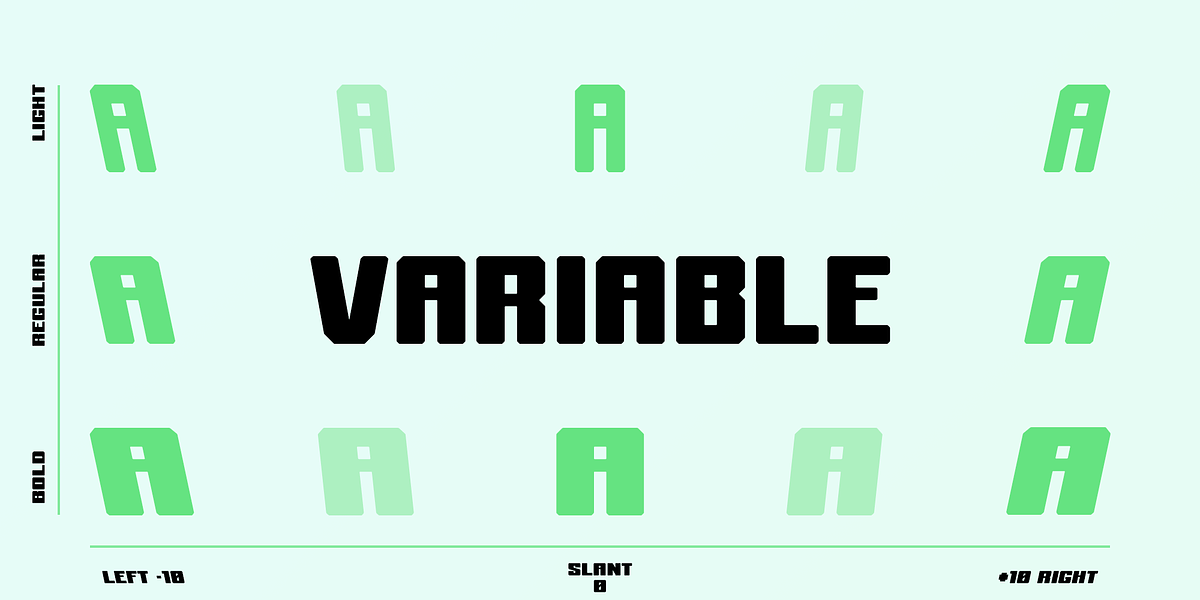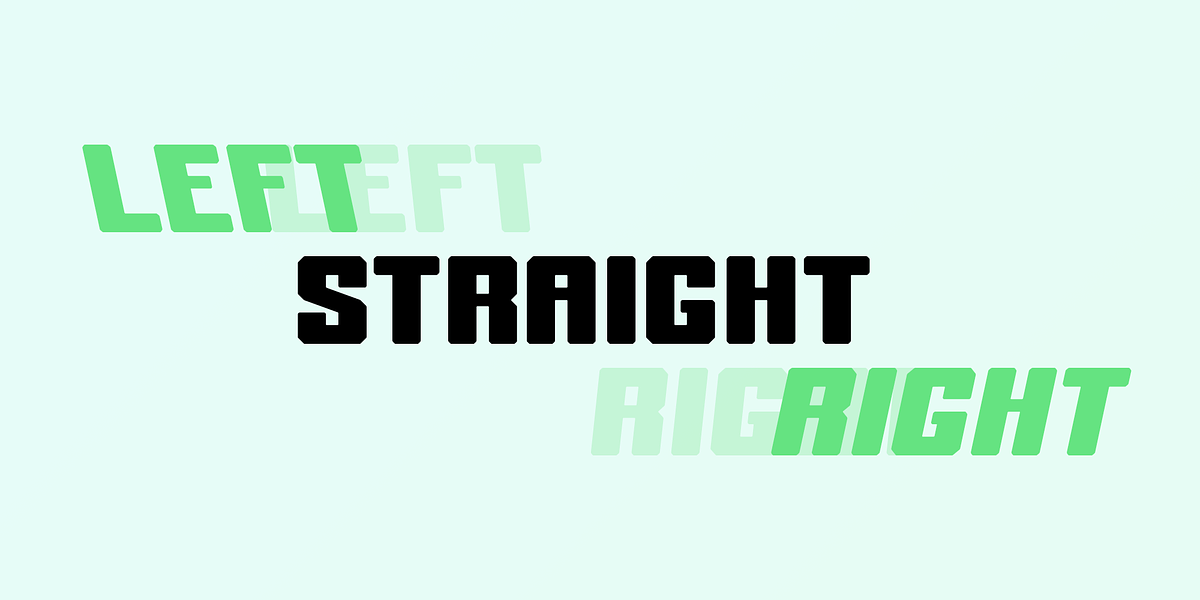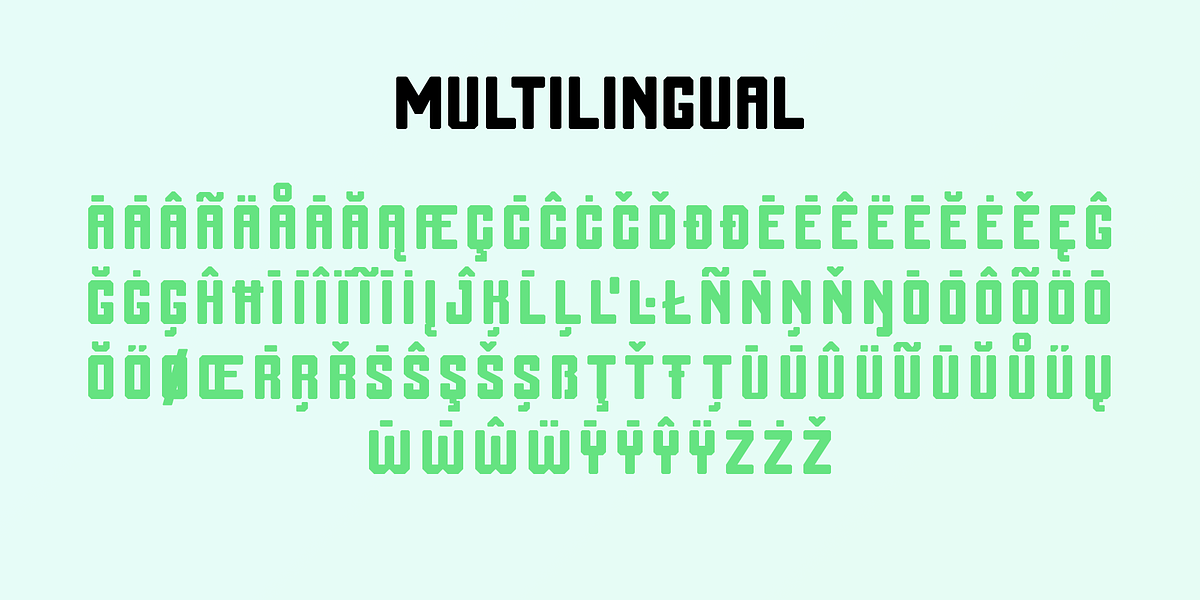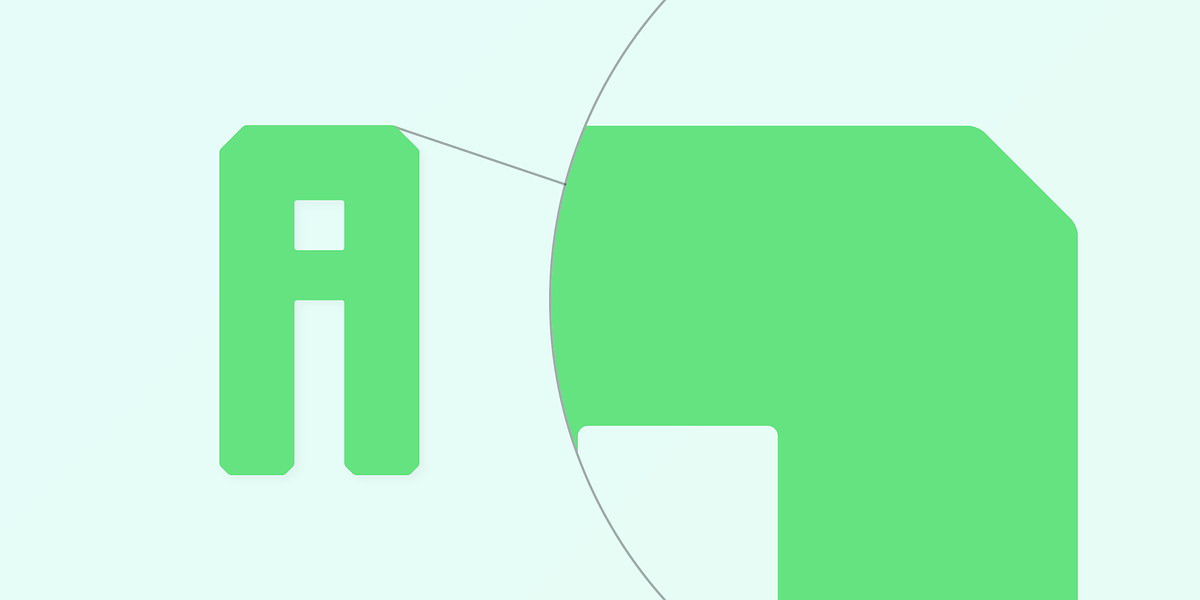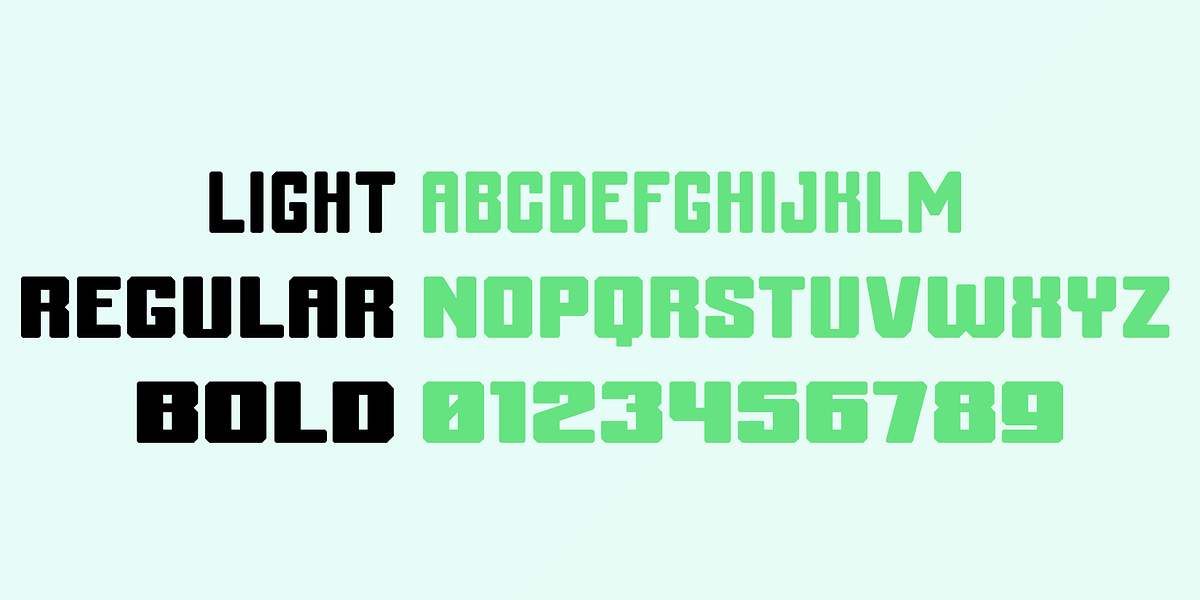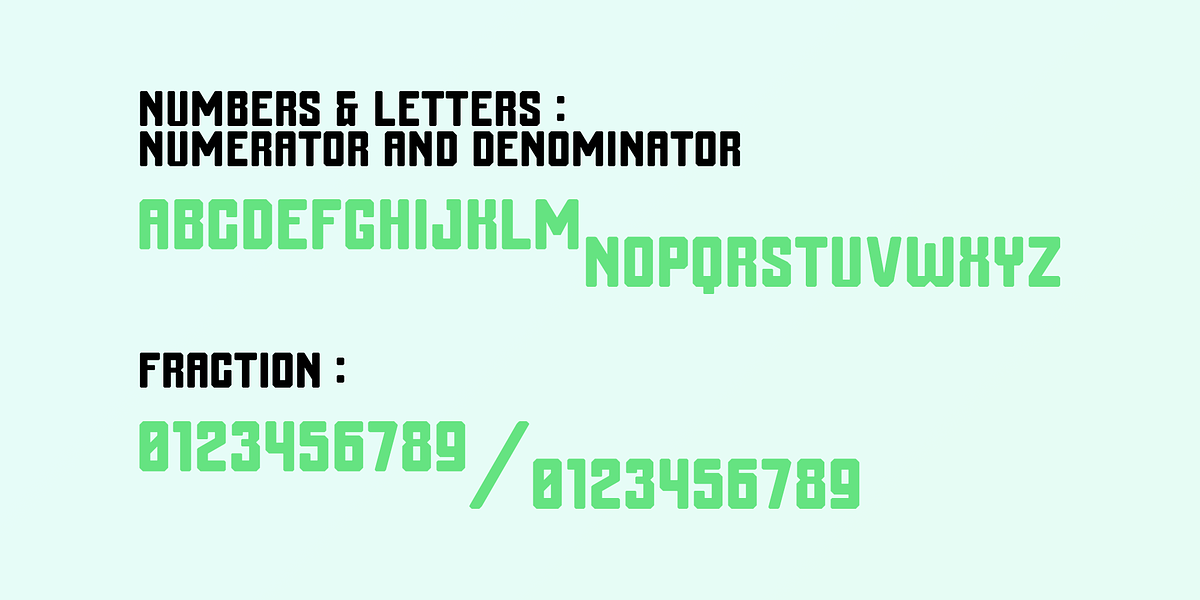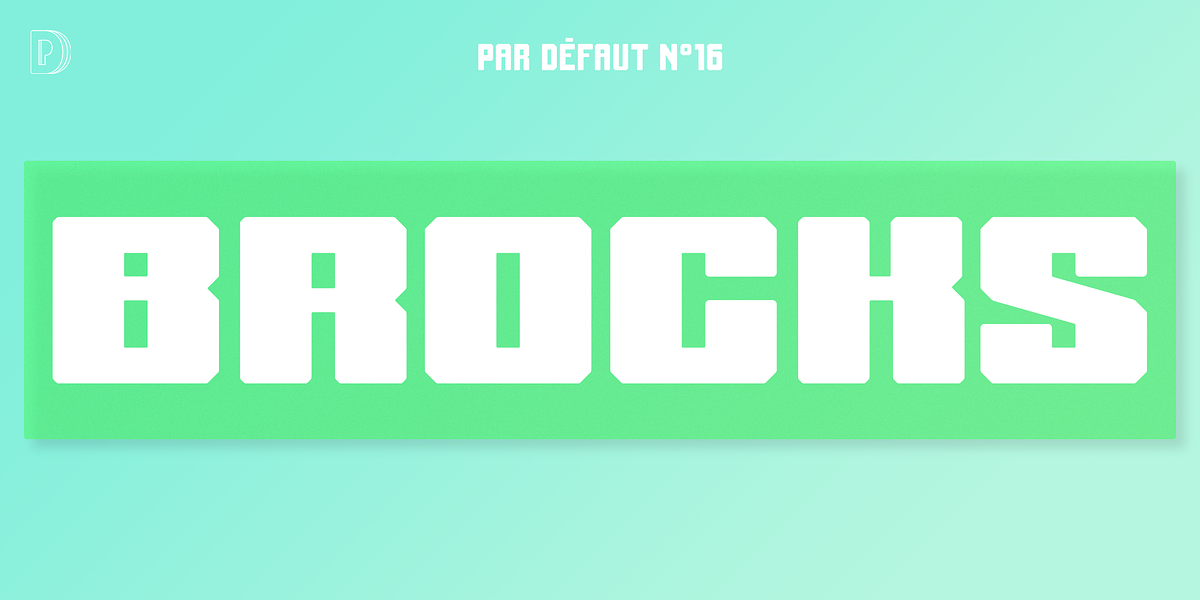
Brocks
Brocks is a modern geometric sans serif font characterized by its square shape with softened vertices. This versatility allows it to function effectively in various applications like headlines, branding, and corporate identity. The font comes in light, regular, and bold weights, as well as right and left slant versions. Notably, Brocks also offers a variable version for further customization. Its extensive character set includes uppercase and lowercase letters, numerators, denominators, ordinals, and fractions, making it suitable for multilingual projects.